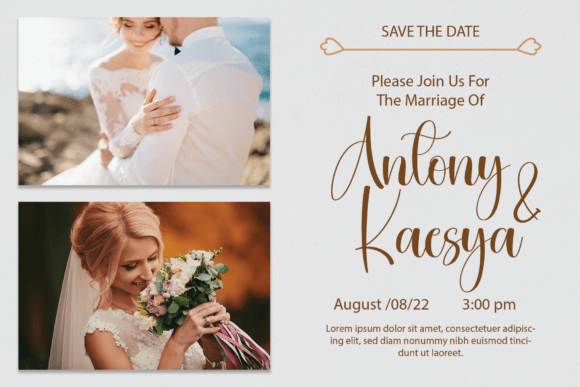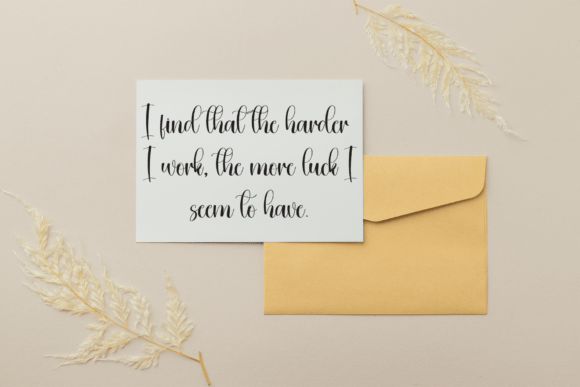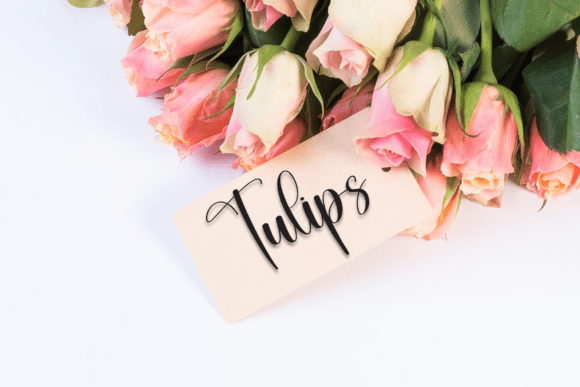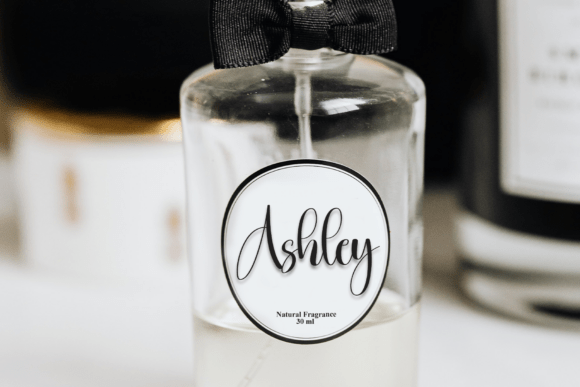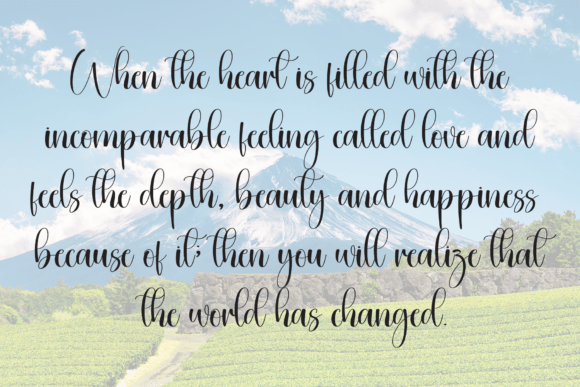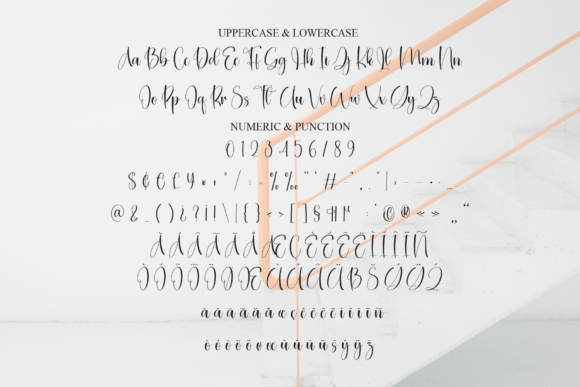
Introduction to Downstairs Font
Have you ever stumbled upon a font that perfectly captures the essence of your creative vision? For designers, finding the right typeface can be a game-changer. It’s that moment when the words on the page come alive, and your message shines through with clarity and style. I had one such experience recently while working on a branding project, and I’m excited to share with you the star of the show: the Downstairs Font.
This stunning handwritten script font is more than just a pretty face – it’s a high-quality design resource that can elevate any creative project. With its flowing strokes and organic curves, Downstairs Font adds a touch of elegance and sophistication, making it perfect for invitations, social media, and of course, branding. Plus, its transparent background makes it a breeze to use on any design surface.
Key Features of Downstairs Font
- High-quality design with a unique and creative style, perfect for a variety of projects.
- Designed with a high resolution, making it suitable for print and digital use, including signage, logos, and branding materials.
Honest Review: Downstairs Font
I recently stumbled upon the Downstairs Font, and I must say it’s been a great addition to my design arsenal. As a designer, I’m always on the lookout for high-quality fonts that can elevate my creative projects. The Downstairs Font delivers on that front, with its unique and stylish aesthetic.
One of the standout features of this font is its transparent background, which makes it easy to use in a variety of design scenarios. Whether you’re working on a logo, a poster, or a website, the Downstairs Font is a great choice. Plus, it’s a free download, making it an excellent design resource for anyone looking to spice up their creative project.
- Unique and stylish aesthetic
- Might be too bold for some designs
- Not suitable for text-heavy content
Overall, I’m impressed with the Downstairs Font. While it may not be the best choice for every design project, it’s a great addition to any designer’s toolkit. If you’re looking for a high-quality font to add some creativity to your work, the Downstairs Font is definitely worth checking out.
Downstairs Font is a versatile design resource that can be used in various creative projects, such as brochures, flyers, and social media graphics. Its unique style and transparent background make it perfect for adding a touch of elegance to your designs.